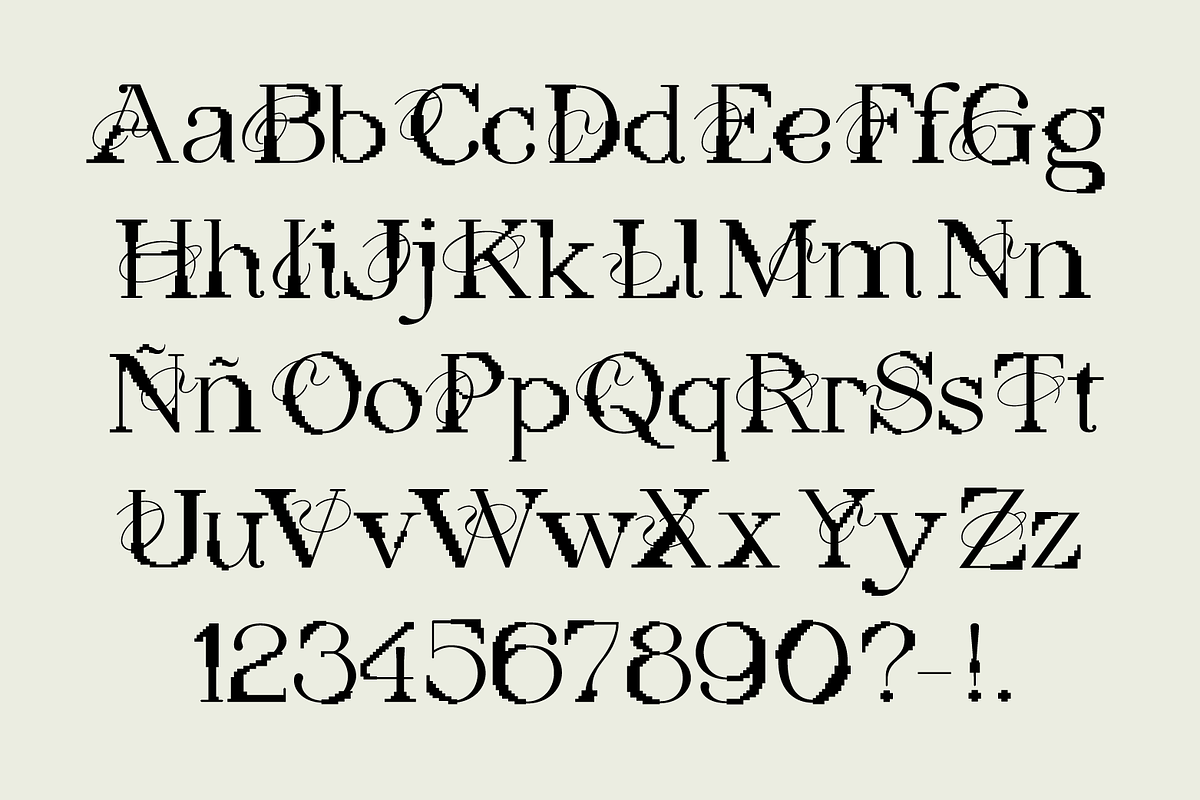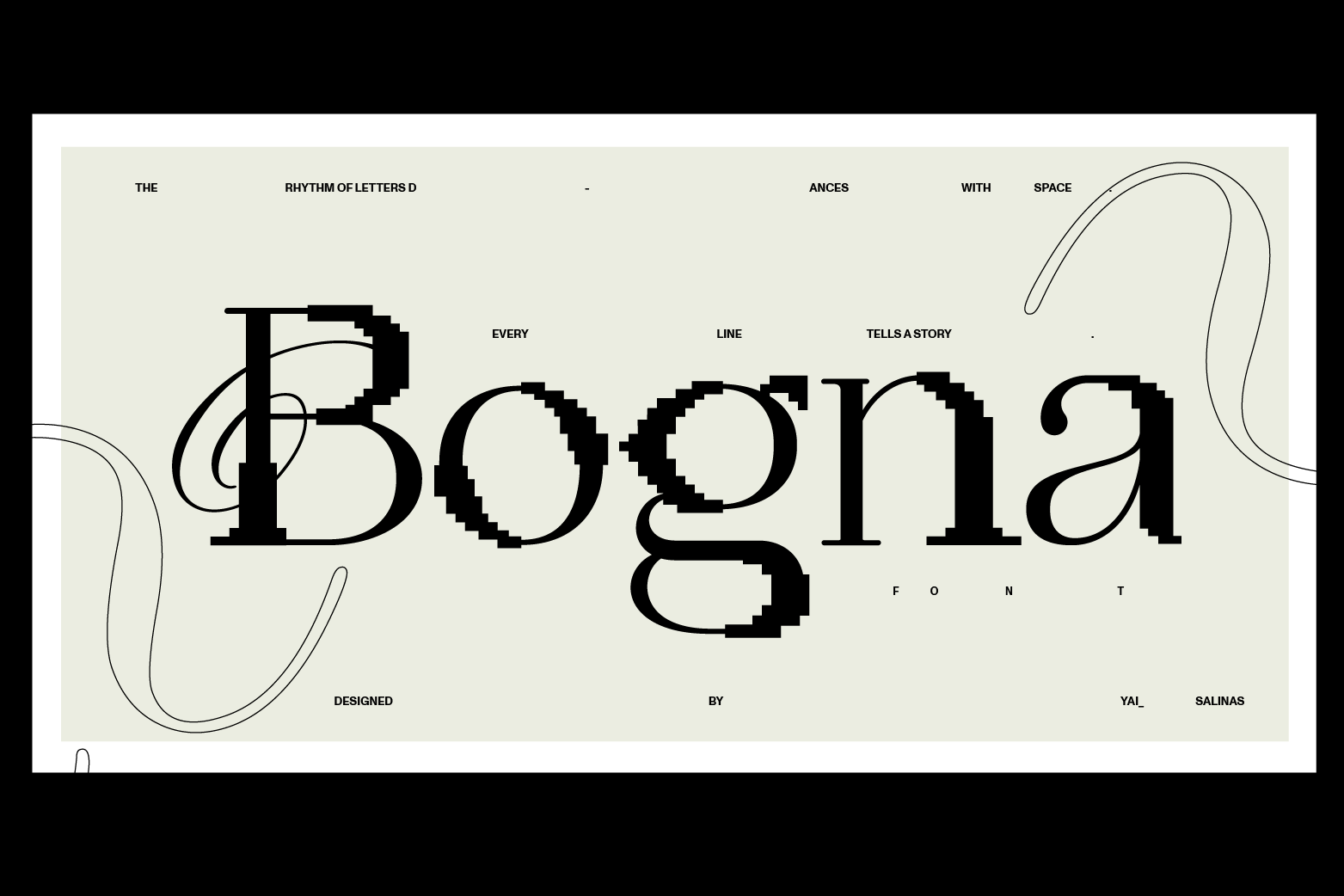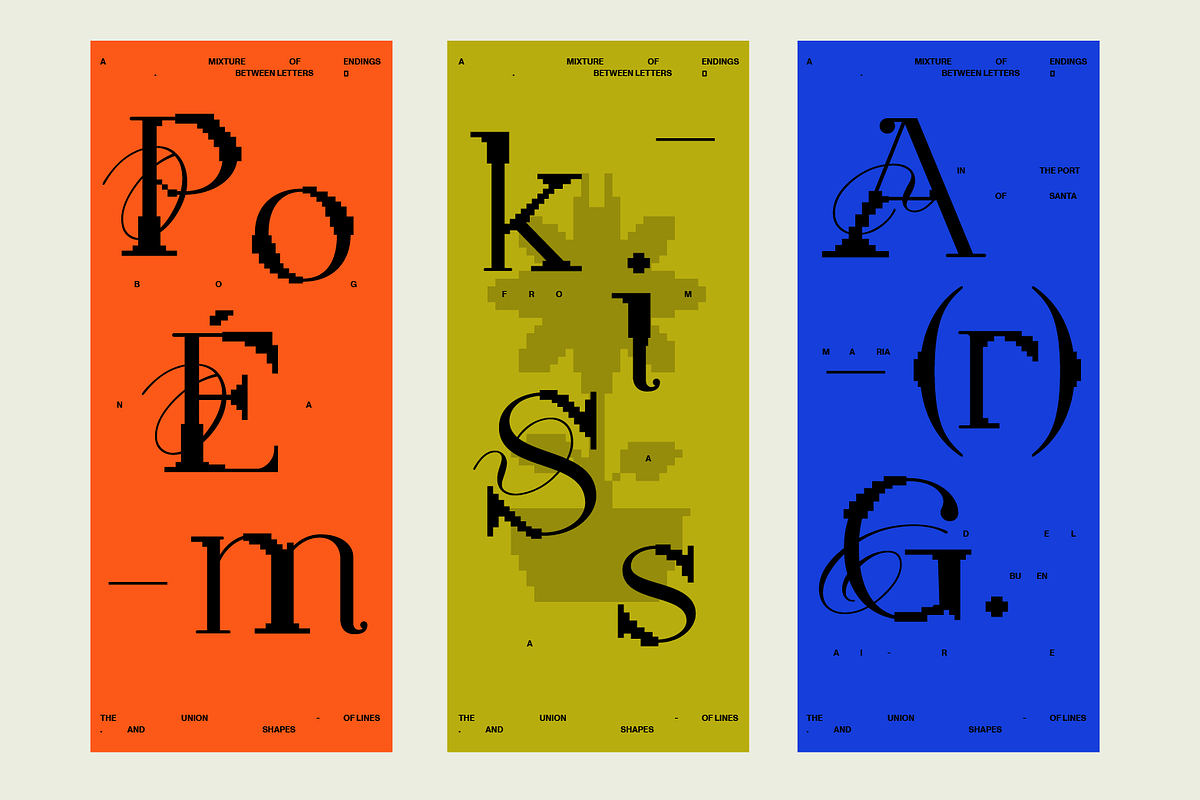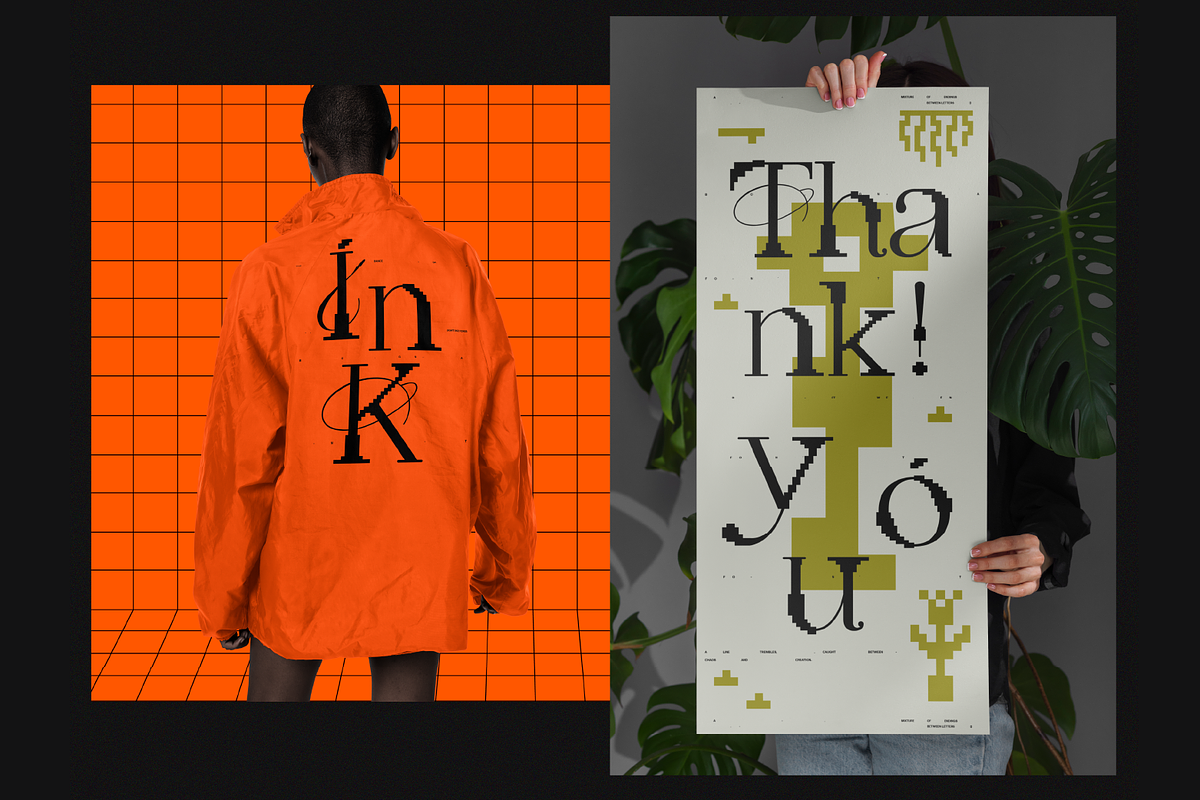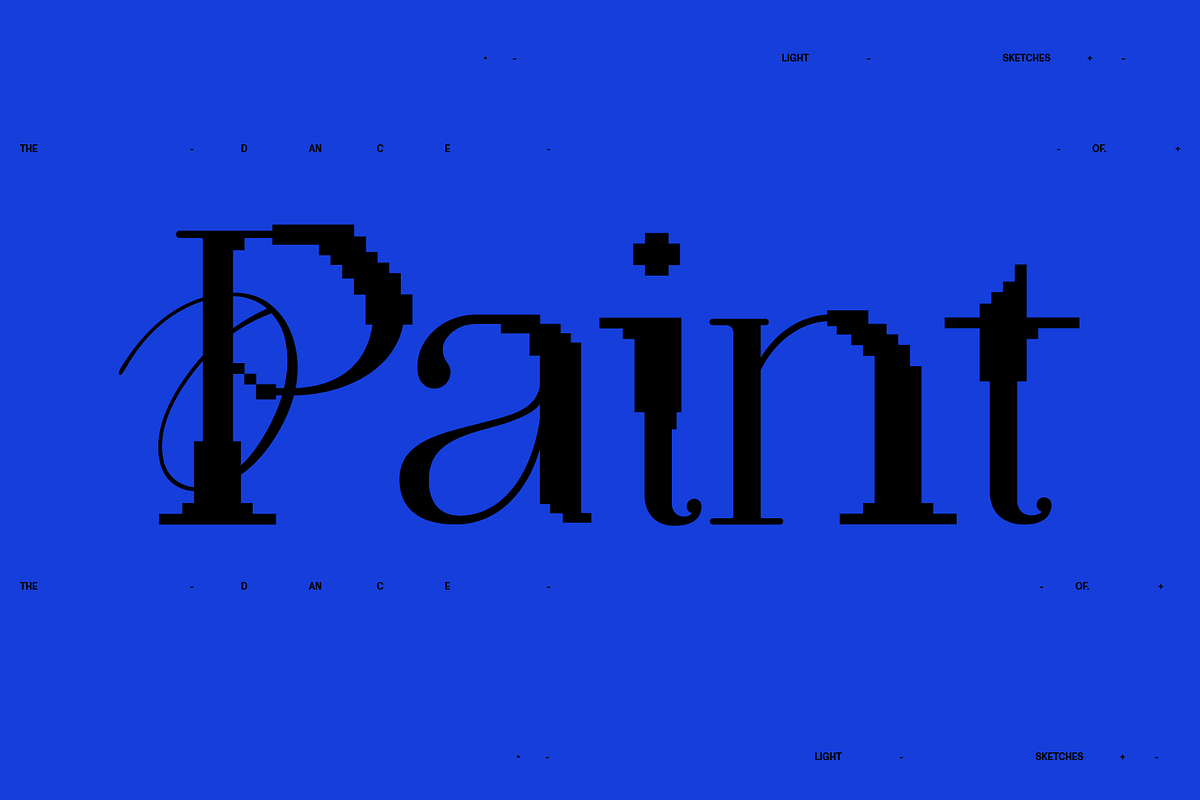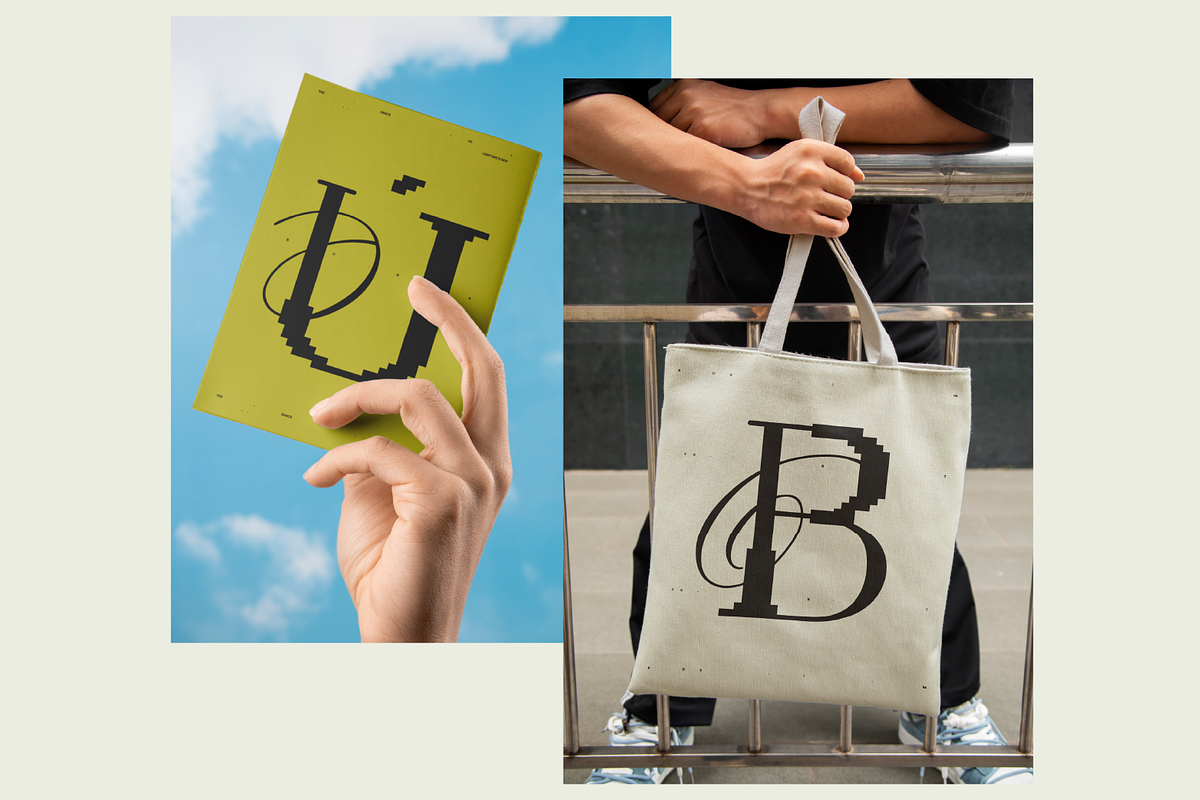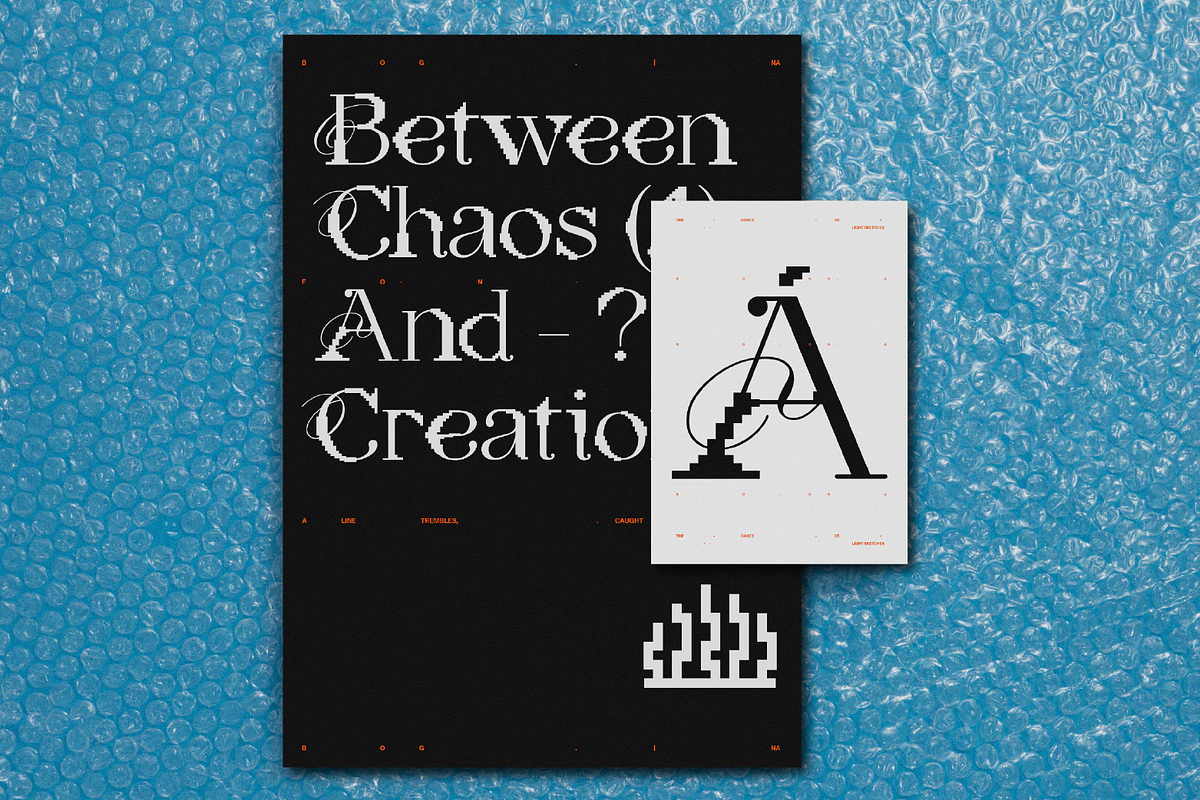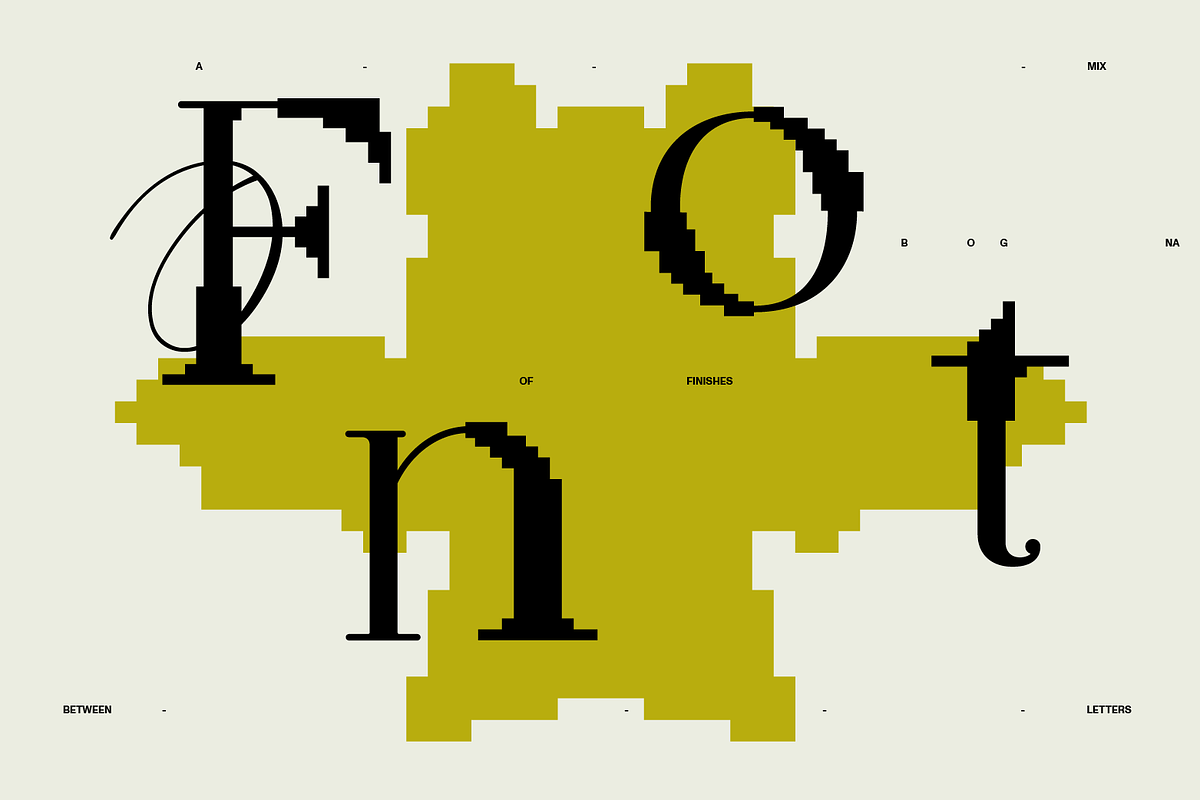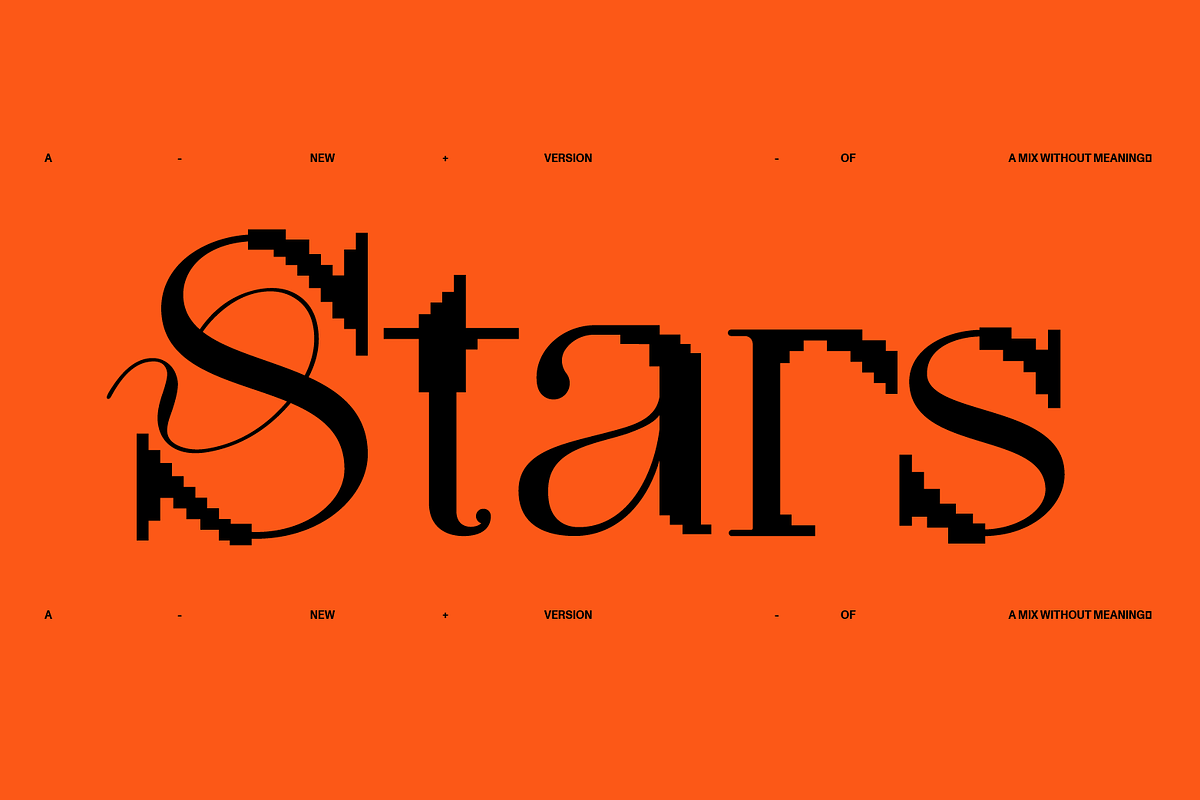
Bogna Font
Bogna Font is a display typeface designed for use in large sizes. It emerges from the fusion of traditional serif font elegance with the modern aesthetics of pixel art. This unique design harmoniously blends these two contrasting styles, resulting in a distinctive and innovative visual identity.